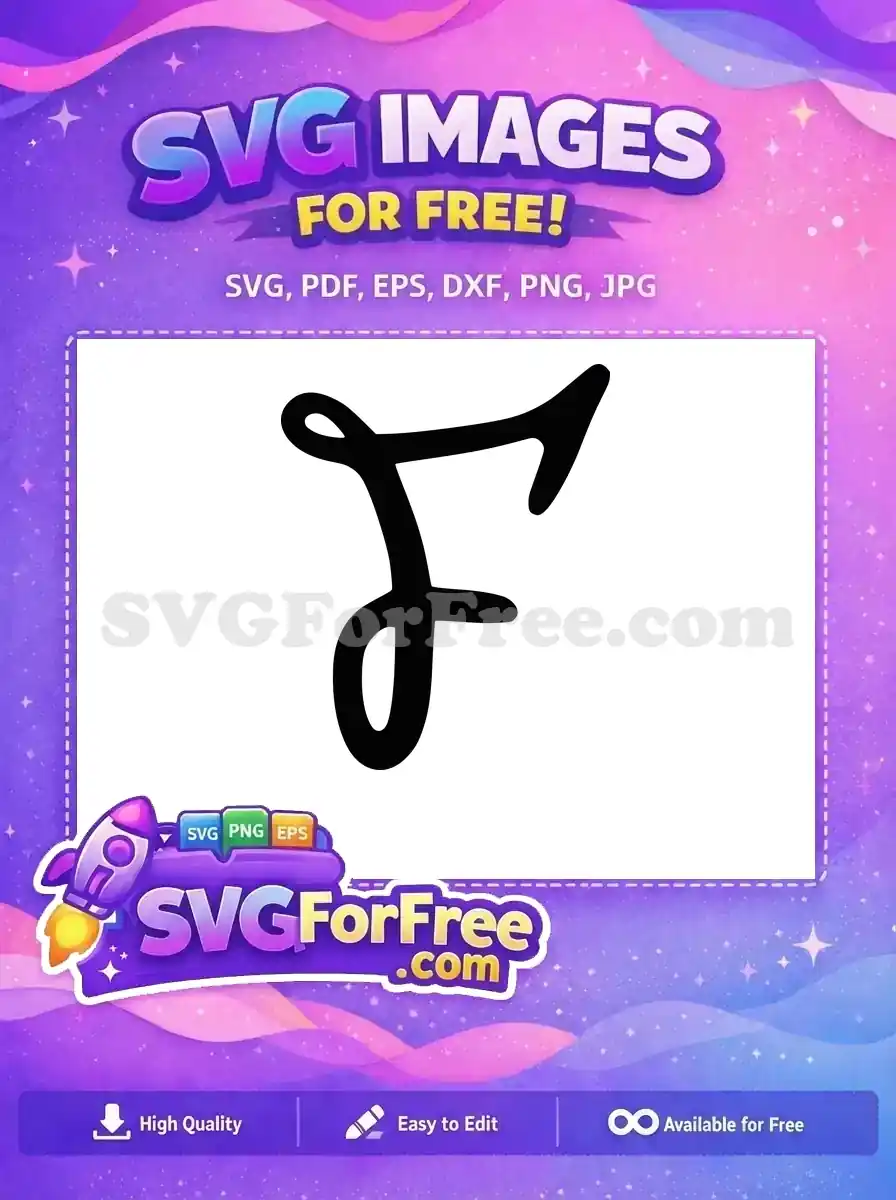
Free Minnie Font Letter F Free Cursive Black Alphabet Disney Free SVG – Instant Download
Flowing letter F in the iconic magical font style, a free vector for creative use.
Free Minnie Font Letter F Free Cursive Black Alphabet Disney Free SVG